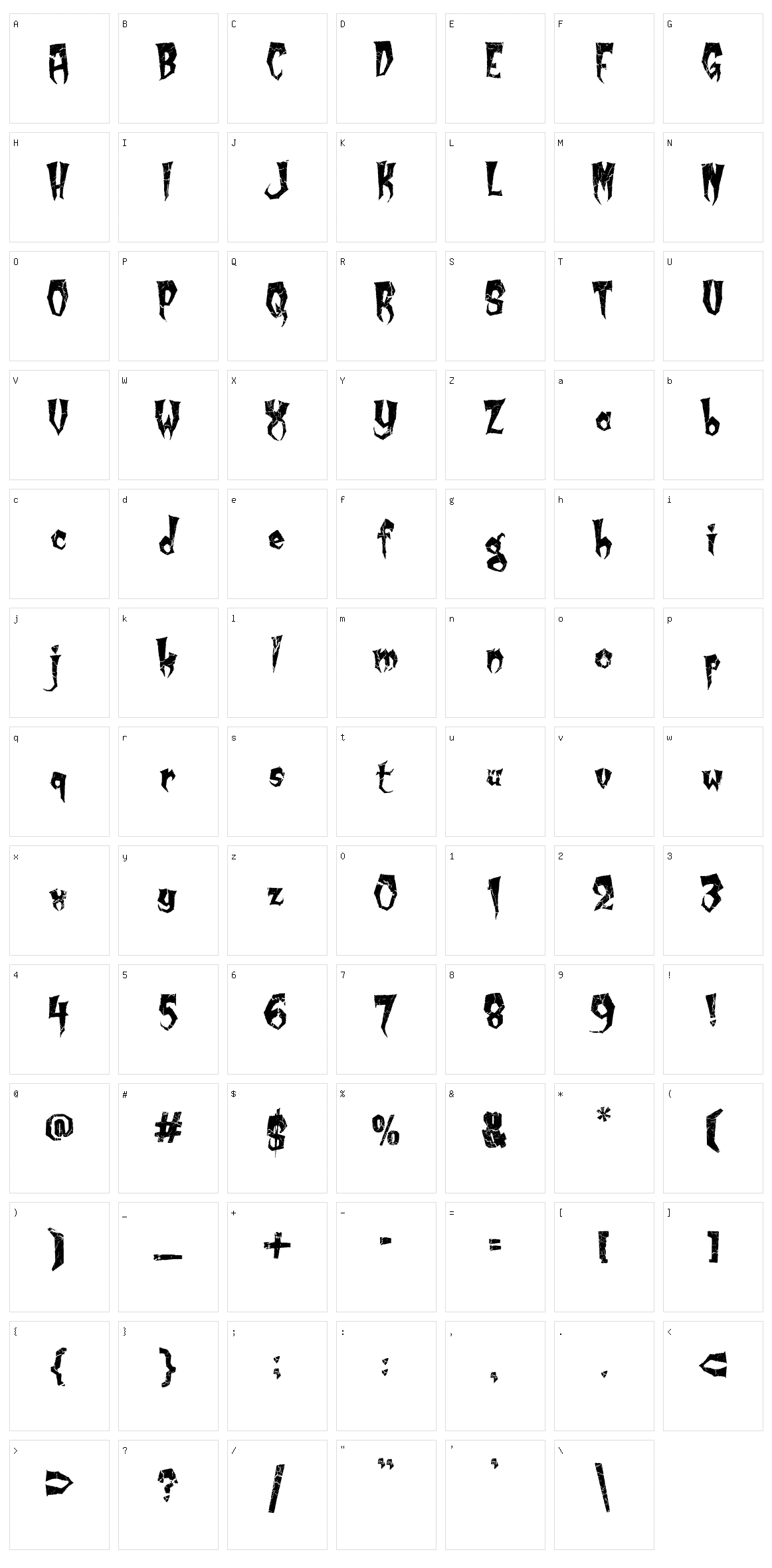
Kreepy Krawly Font by Chad Savage
Created 2005, hand-lettered for 1313 Magazine [rejected design].
This font is intended for specialty and graphic uses. It will look just awful if used in a paragraph format.